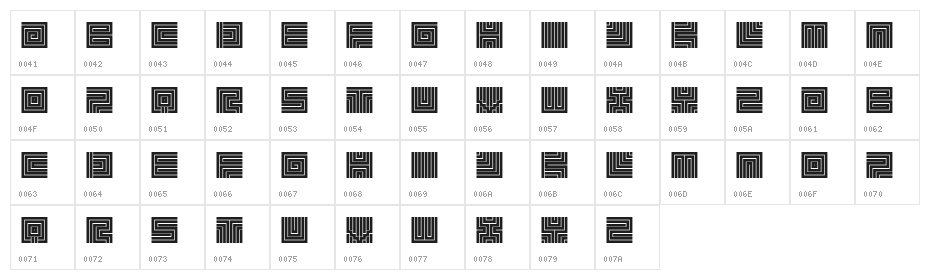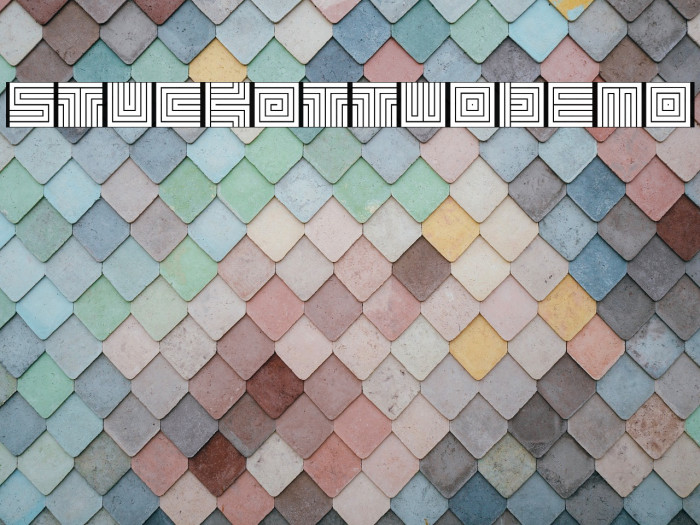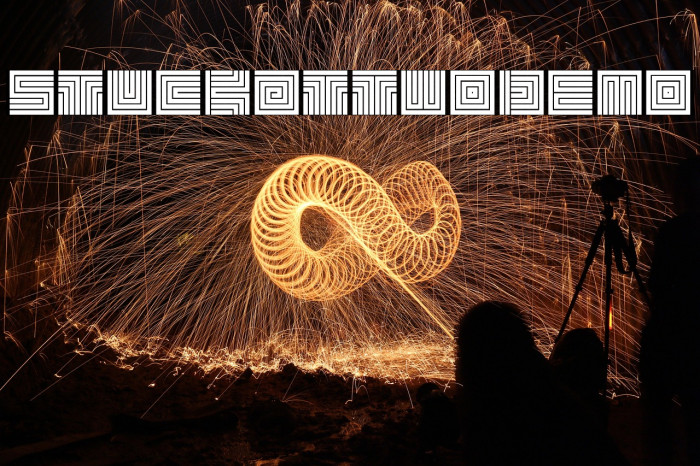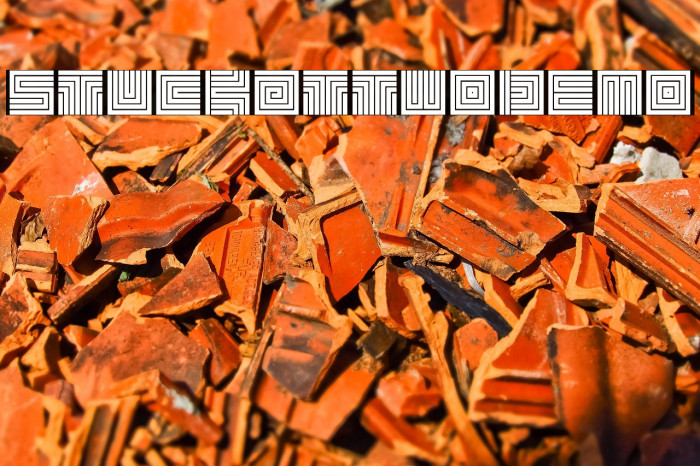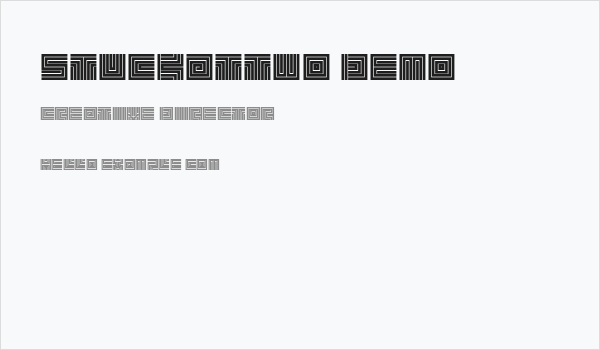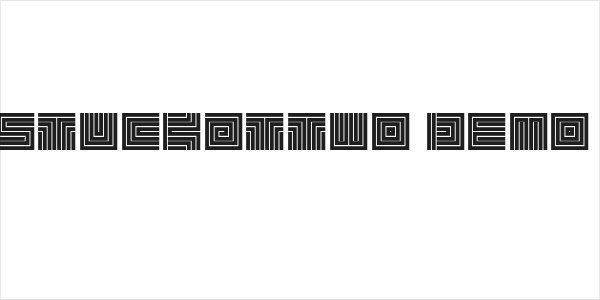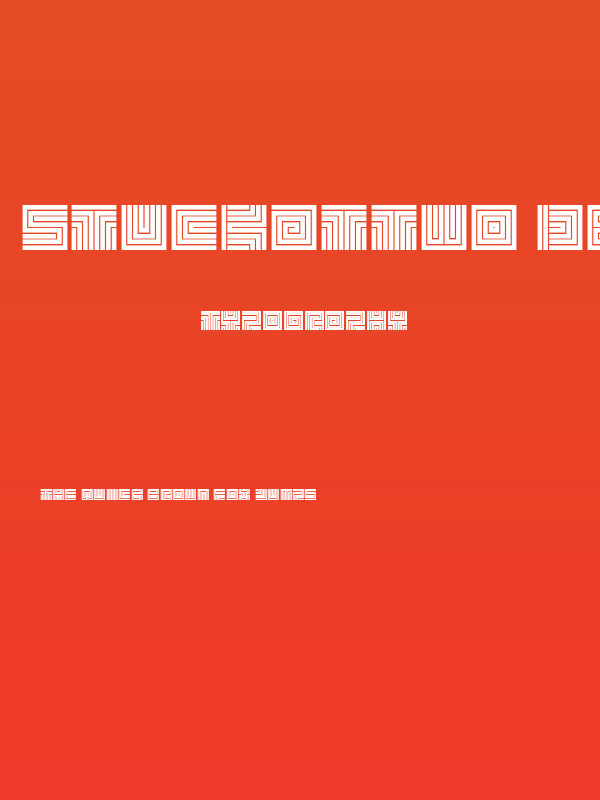
stuckattwo_demo1 Font
stuckattwo_demo1 Description
This font features a highly geometric and maze-like design, with each character composed of intricate lines and patterns. The letters are constructed with a series of parallel lines that create a sense of depth and complexity. The overall appearance is bold and striking, making it ideal for attention-grabbing designs. The characters are uniformly styled, maintaining a consistent visual theme throughout the alphabet. The font's unique structure makes it stand out, offering a modern and artistic flair that is both decorative and functional.
| Proposed Projects | Ideal for use in modern art projects, branding for tech companies, futuristic designs, and eye-catching posters. |